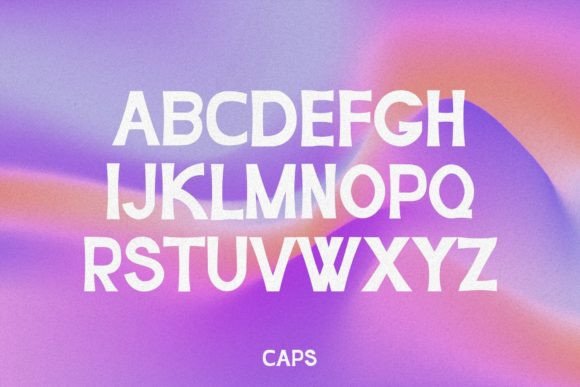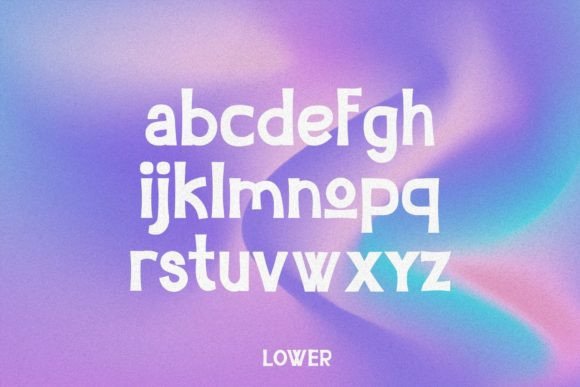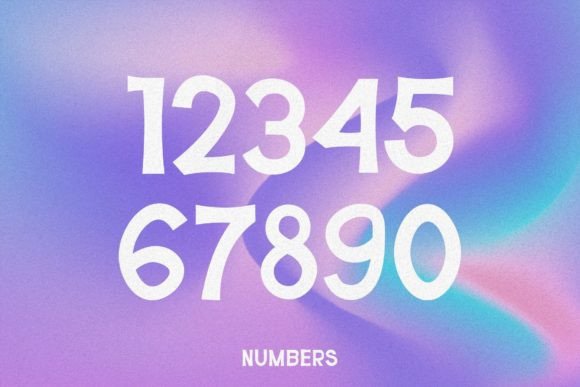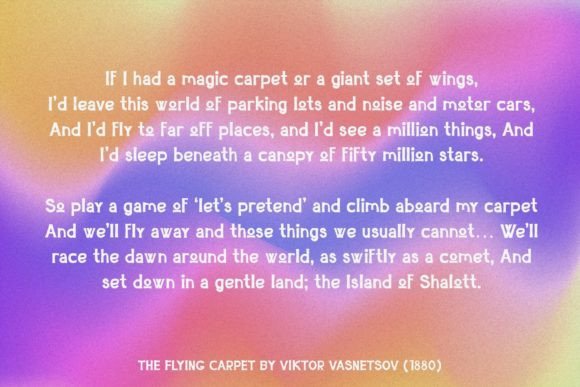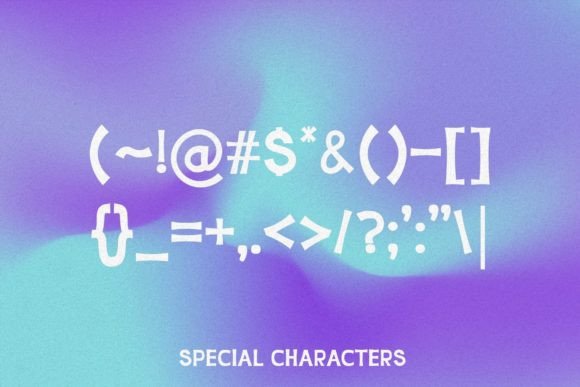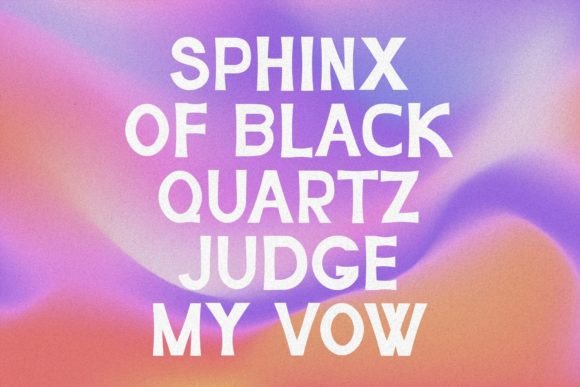
Introduction to Kendric Font Font
Fonts play a crucial role in design, and the Kendric Font font is a typeface that brings both character and versatility to any project. Whether you’re working on a branding project, a website, or a print design, the Kendric Font font offers a unique style that can elevate your work.
Kendric is a beautiful retro display typeface.
Thanks to its legibility itβs perfect for large format use The font is very lighthearted and not too serious.
Key Features of Kendric Font Font
Why Choose Kendric Font Font?
The Kendric Font font is more than just a typeface β it’s a design tool that helps you communicate your message with style and clarity. Its unique character set and versatile design make it suitable for a wide range of applications, from elegant invitations to bold headlines.
With its carefully crafted letterforms and balanced proportions, the Kendric Font font ensures readability and visual appeal across all mediums.
What makes Kendric Font font special?
The Kendric Font font stands out with its unique design, exceptional readability, and versatility across various design applications.